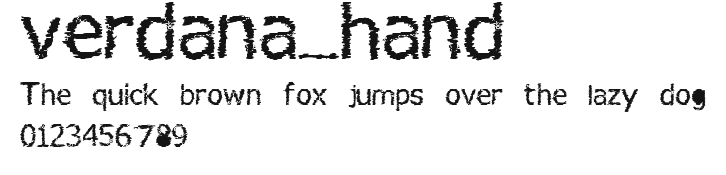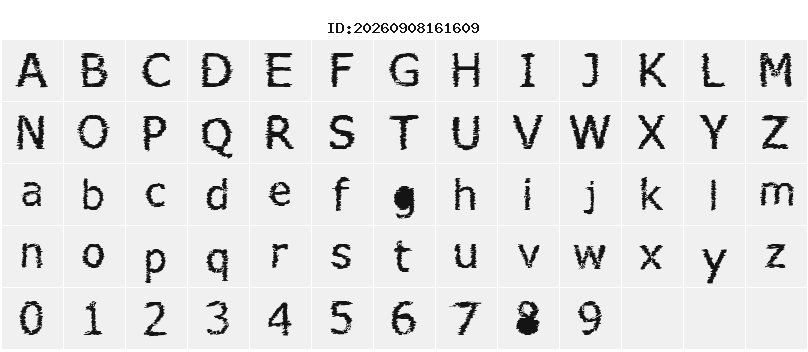
verdana_hand Preview
• Font Name: verdana_hand
• Font ID: verdana_hand
• Full Font Name: verdana_hand
About verdana_hand.ttf
verdana_hand.ttf is a modern, elegant sans-serif font designed for ultimate readability and visual harmony. Perfect for branding, headlines, web design, and print materials.